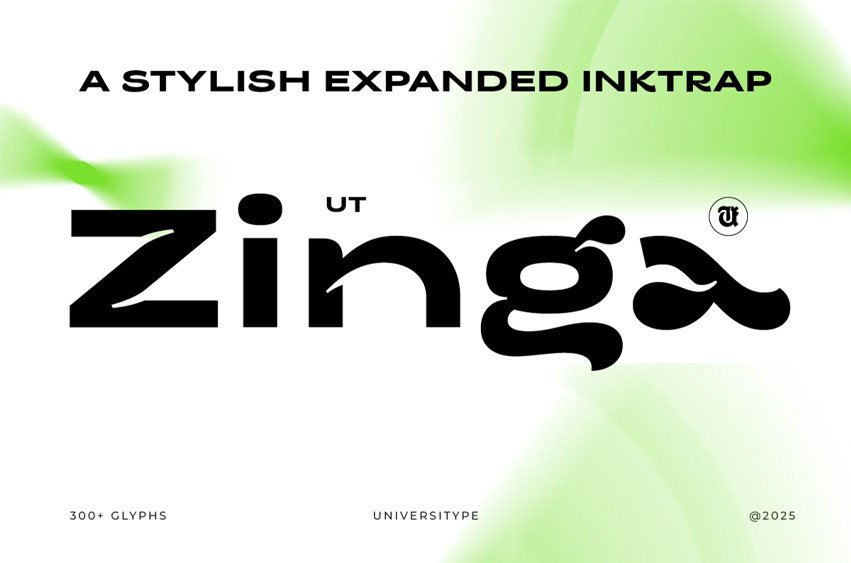
UT Zinga Font is an expanded display typeface with a bold, high-energy presence. It combines brutalist industrial structure with fluid, wave-like details, creating letterforms that feel tense, dynamic, and futuristic. Defined by aggressive inktraps and heavy horizontal stress, Zinga is built to stand out in modern, experimental layouts.
Perfect for designers who want something loud, technical, and visually striking—far from generic sans-serif styles.
Best Use
- Headlines and large display text
- Music and event branding
- Posters, flyers, and editorial layouts
- Motion graphics and animated typography
- Aggressive inktrap details
- Signature fluid terminals on select characters
- Expanded proportions for maximum impact
- 300+ glyphs with multilingual support
- Custom ligatures and stylistic alternates
Technical Details
- Style: Expanded Display
- Weight: Regular